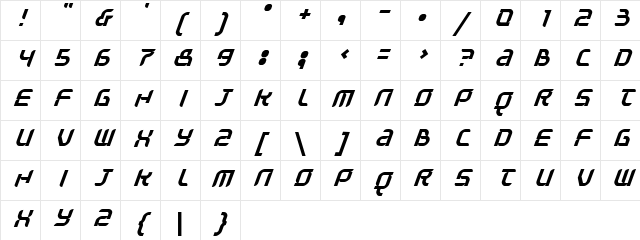
Question of time Regular
Complete Question of time Regular glyph index. Displaying only characters natively supported by Question of time Regular font.
Design Context for Question of time
Question of time is a composed and adaptable typeface that performs quietly and consistently across a wide range of design contexts.